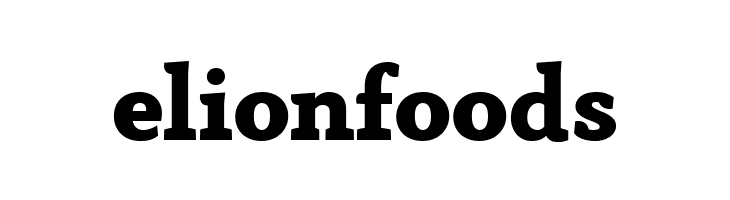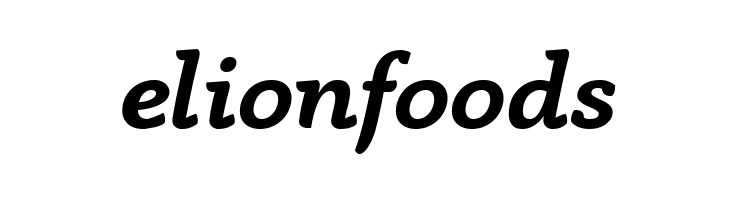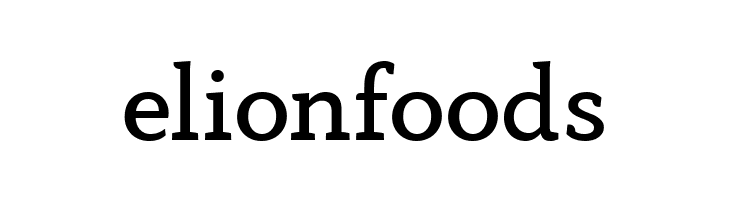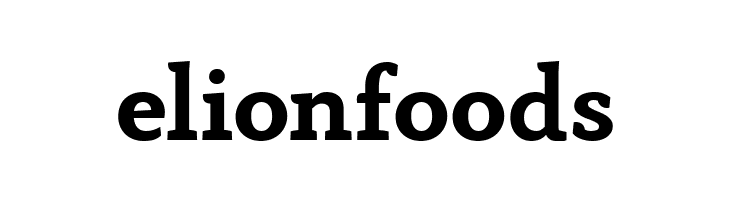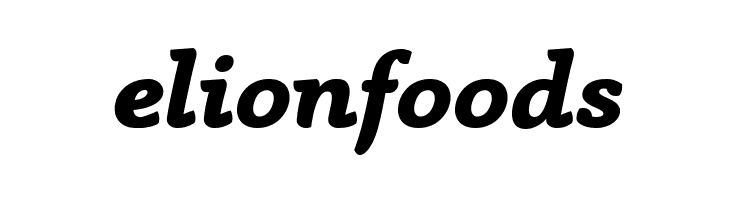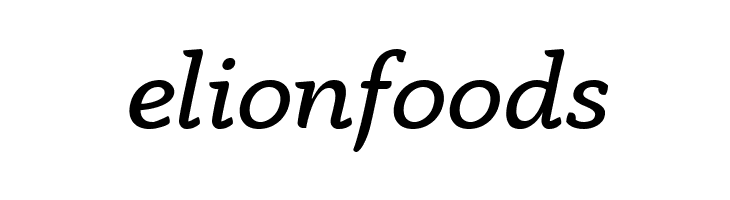
A bold serif font with strong strokes and classic-modern appeal.
A bold and italicized font with strong, slanted strokes and a dynamic presence.
A classic serif font with a balanced and elegant appearance.
A classic italic font with smooth curves and moderate contrast, offering elegance and readability.
A bold and robust font with strong, thick strokes for a confident and authoritative look.
A bold, italic font with a dynamic and modern style.
A refined and elegant font with thin, delicate strokes and a modern appearance.
A refined, elegant serif font with a light, italicized style.
A bold, robust font with thick strokes, perfect for impactful headlines.
A bold, italicized font with a dynamic and energetic style.